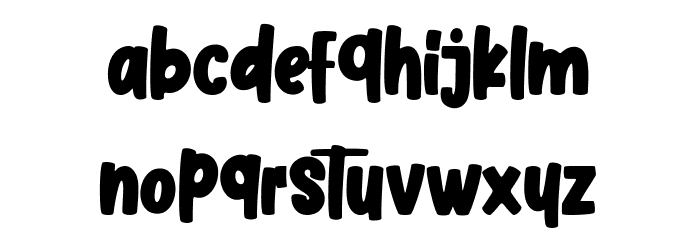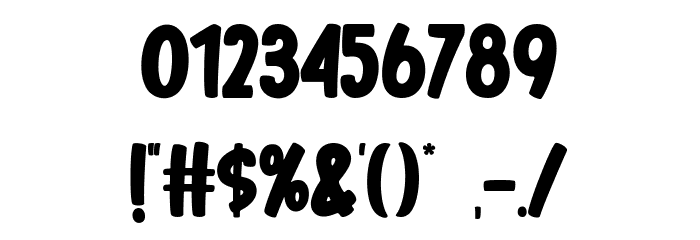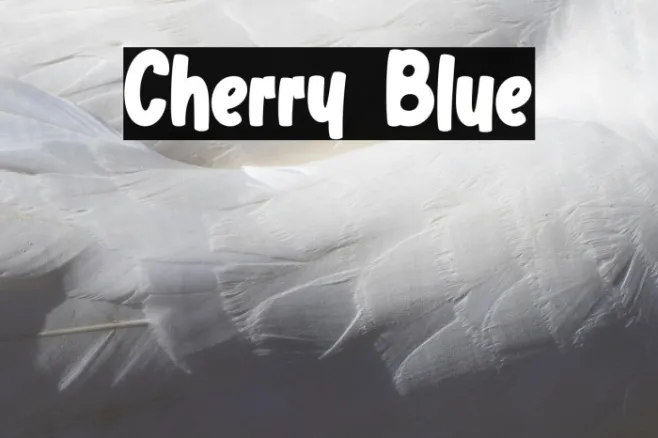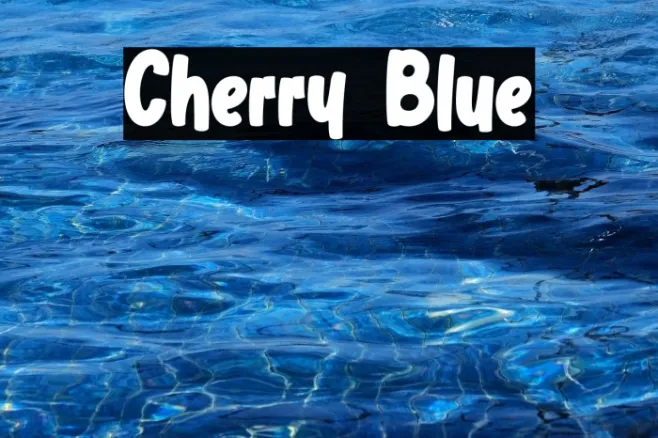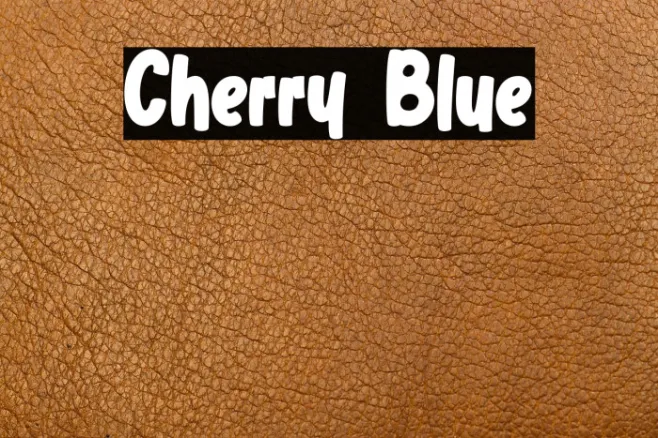
Cherry Blue Font
This font features a bold and playful style with rounded edges and a slightly irregular baseline, giving it a friendly and approachable appearance. The characters are thick and substantial, making them highly legible and impactful. The uppercase and lowercase letters maintain a consistent weight, while the numerals and special characters blend seamlessly with the overall design. The font's whimsical nature is enhanced by its smooth curves and slightly condensed form, making it suitable for a variety of creative applications.
A bold, playful font with rounded edges and a friendly, approachable style.
- Proposed Projects: Ideal for children's books, playful branding, casual invitations, and creative posters.
- Overall Style: Playful